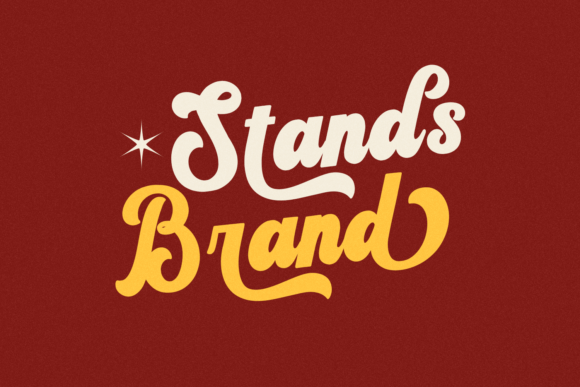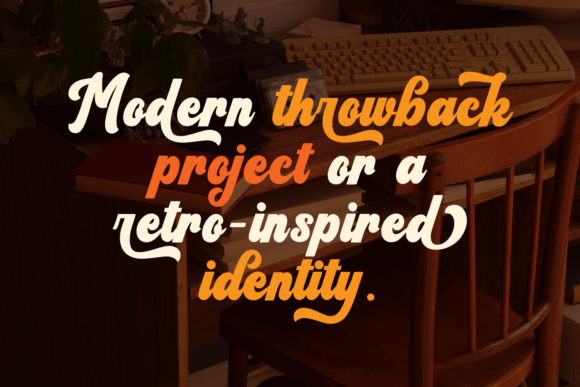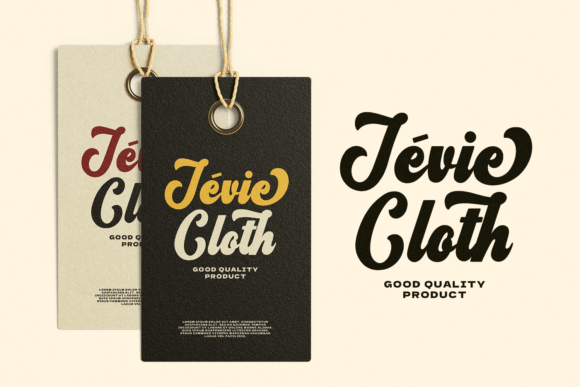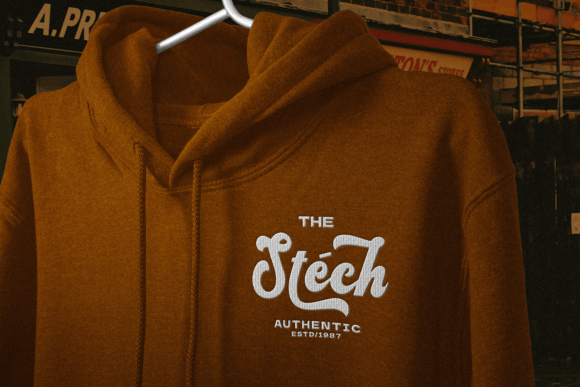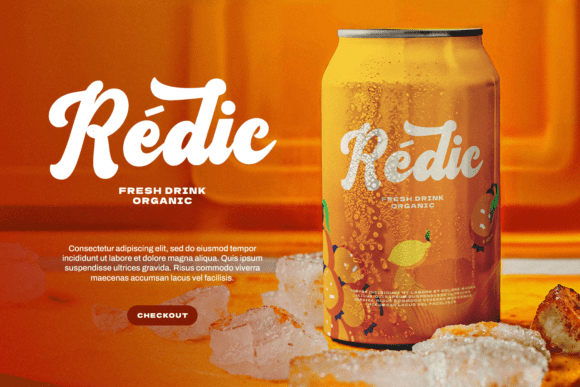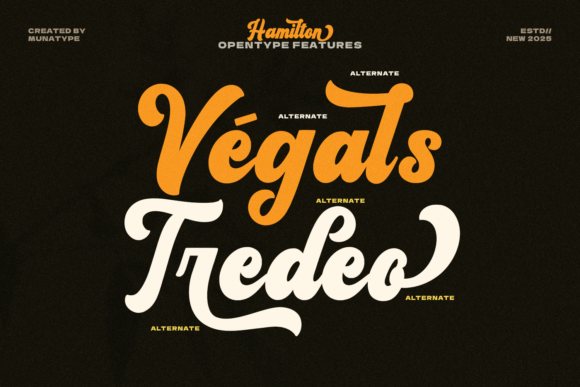
Introducing Hamilton: The Ultimate Bold Script Handwritten Font for Retro Designs
Are you looking for a font that combines vintage charm with a touch of modern flair? Look no further than Hamilton, a bold script handwritten font that is sure to elevate your designs to the next level. With its sweeping strokes and confident curves, each character in Hamilton carries a distinctive personality, making it perfect for retro designs, signature branding, and nostalgic themes.
The Unique Features of Hamilton Font
Hamilton stands out from other fonts with its handcrafted look, which adds authenticity and warmth to any project. Its beginning and ending swashes on every character create a natural and elegant flow, making it ideal for crafting festive designs, personalized invitations, and sophisticated branding. Whether you’re working on a Christmas, New Year, Winter, or Easter project, or adding a touch of elegance to Thanksgiving invitations, Cricut crafts, embroidery, or SVG projects, Hamilton delivers stylish versatility.
Hamilton is a font that is sure to delight designers and crafters alike. Its bold, flowing script adds a sophisticated yet playful vibe to any project, making it perfect for lettering enthusiasts and crafty professionals. With Hamilton, you can bring your creative vision to life with its retro charm and expressive detail. Whether you’re creating custom signs, logos, or invitations, Hamilton is the perfect font to add a touch of elegance and whimsy.
Key Benefits of Using Hamilton Font
- Retro charm: Hamilton’s vintage-inspired design adds a touch of nostalgia to any project.
- Handcrafted look: The font’s handcrafted look adds authenticity and warmth to any project.
- Swashes and curves: Hamilton’s beginning and ending swashes on every character create a natural and elegant flow.
- Versatility: The font is perfect for a wide range of projects, from festive designs to personalized invitations and sophisticated branding.
- Festive designs: Use Hamilton to create festive designs for Christmas, New Year, Winter, or Easter.
- Personalized invitations: Add a touch of elegance to your invitations with Hamilton’s bold, flowing script.
- Branding and logos: Use Hamilton to create sophisticated branding and logos that stand out.
- Cricut crafts: Hamilton is perfect for Cricut crafts, including custom signs, logos, and invitations.
- Embroidery and SVG projects: Use Hamilton to add a touch of elegance to your embroidery and SVG projects.
In conclusion, Hamilton is a bold script handwritten font that is sure to elevate your designs to the next level. With its unique features, versatility, and ease of use, Hamilton is the perfect font for designers and crafters alike. Whether you’re creating festive designs, personalized invitations, or sophisticated branding, Hamilton delivers stylish versatility and a touch of retro charm. Download Hamilton today and start creating!